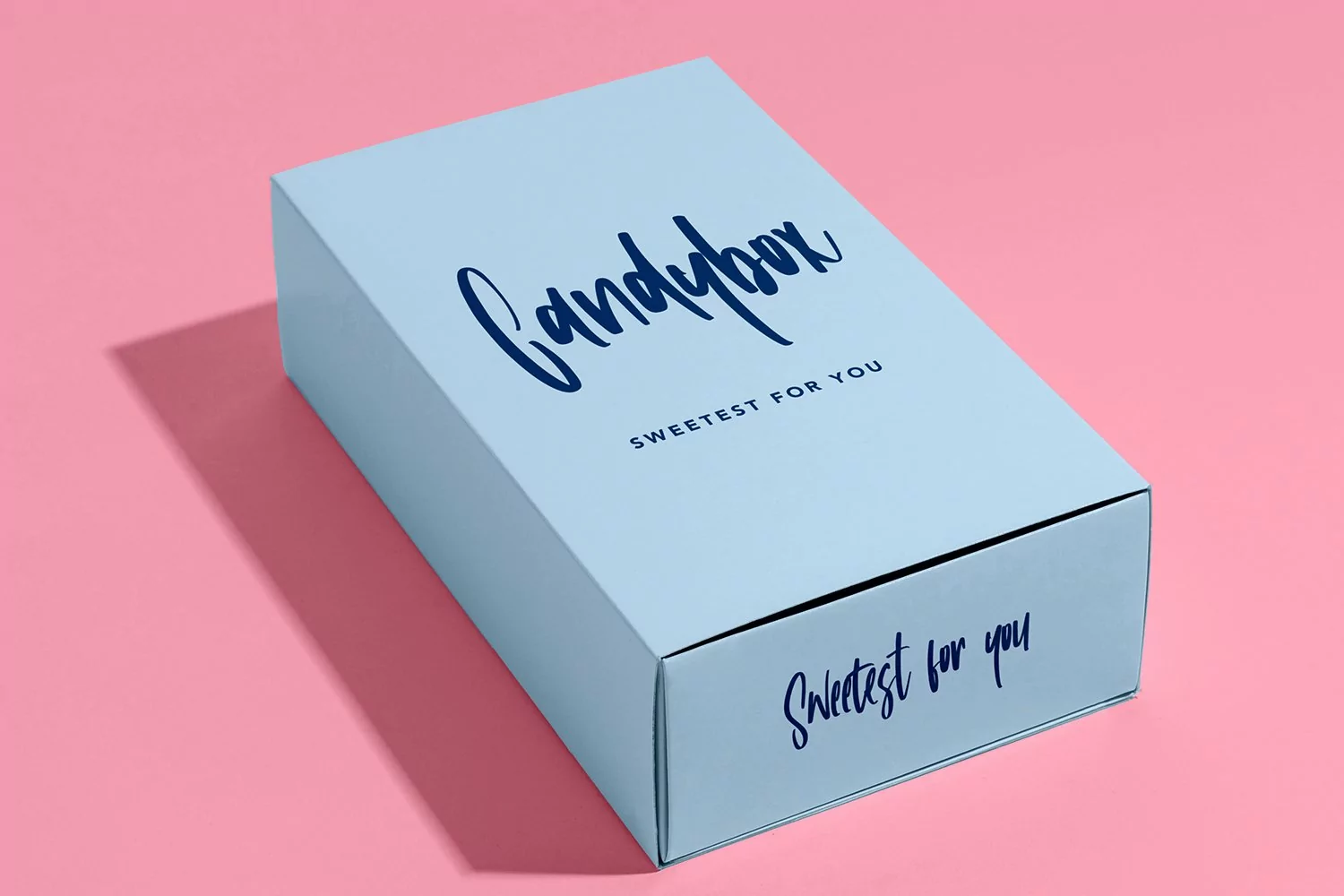
Candyfloss - Beauty & cute Handletter Font that contain lowercase, uppercase, symbol, and also support multi language. There’s a lot ligatures in this font. This Font also comes with ligatures, alternates and many more. this font suitable for fashion, branding, catalog and other design what you want.